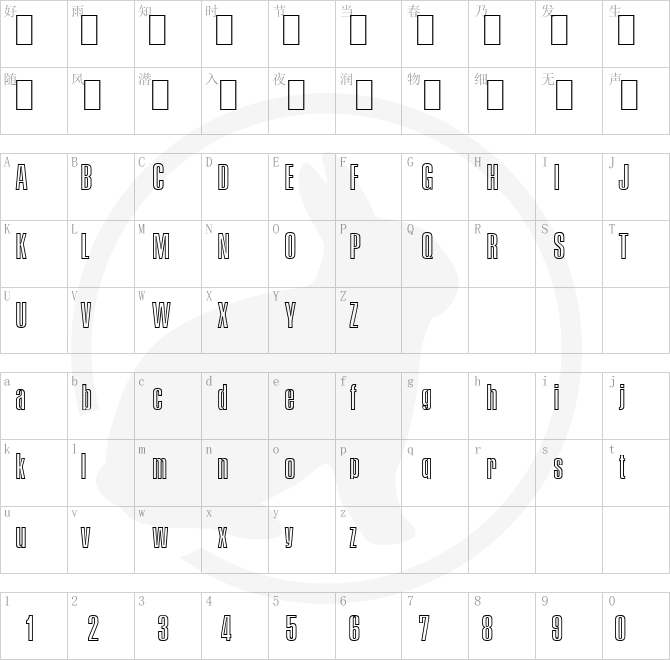
- Font Name:P700-Sans-Outline
P700-Sans-Outline-Regular.ttf is a very beautiful artistic font, P700-Sans-Outline-Regular.ttf is widely used in the design and printing of various books and pictures,P700-Sans-Outline-Regular.ttf has a strong visual impact,P700-Sans-Outline-Regular.ttf is a commonly used font in newspapers, magazines and books, and is used in posters, e-commerce Poster design, store design, logo design, font design and other fields.P700-Sans-Outline-Regular.